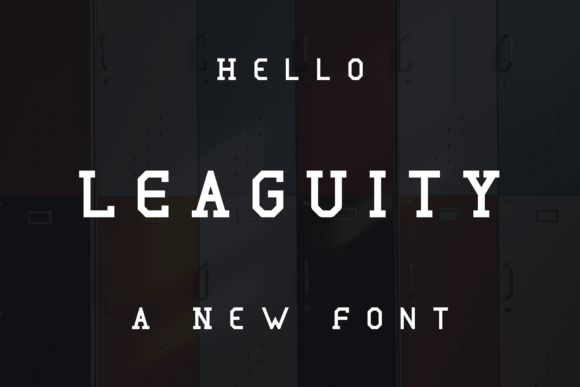
Welcome to the exquisite realm of Leaguity, a captivating serif font that will transform your creative visions into breathtaking realities. Each meticulously crafted letter exudes elegance, lending an air of sophistication to your designs.
Leaguity's versatility knows no bounds, making it the perfect choice for a multitude of projects. Whether you're crafting a modern logo that demands attention, designing a website that exudes professionalism, or creating captivating social media posts, Leaguity will elevate your creations to new heights.
Immerse yourself in the allure of this timeless font and let your imagination soar. Leaguity's graceful curves and sharp angles evoke a sense of both modernity and tradition, making it an ideal companion for any design project that seeks to make a lasting impression.
But Leaguity is not merely a font; it's an invitation to explore the boundless possibilities of typography. With its effortless charm and undeniable charisma, Leaguity will inspire you to create designs that resonate with audiences and leave an unforgettable mark.